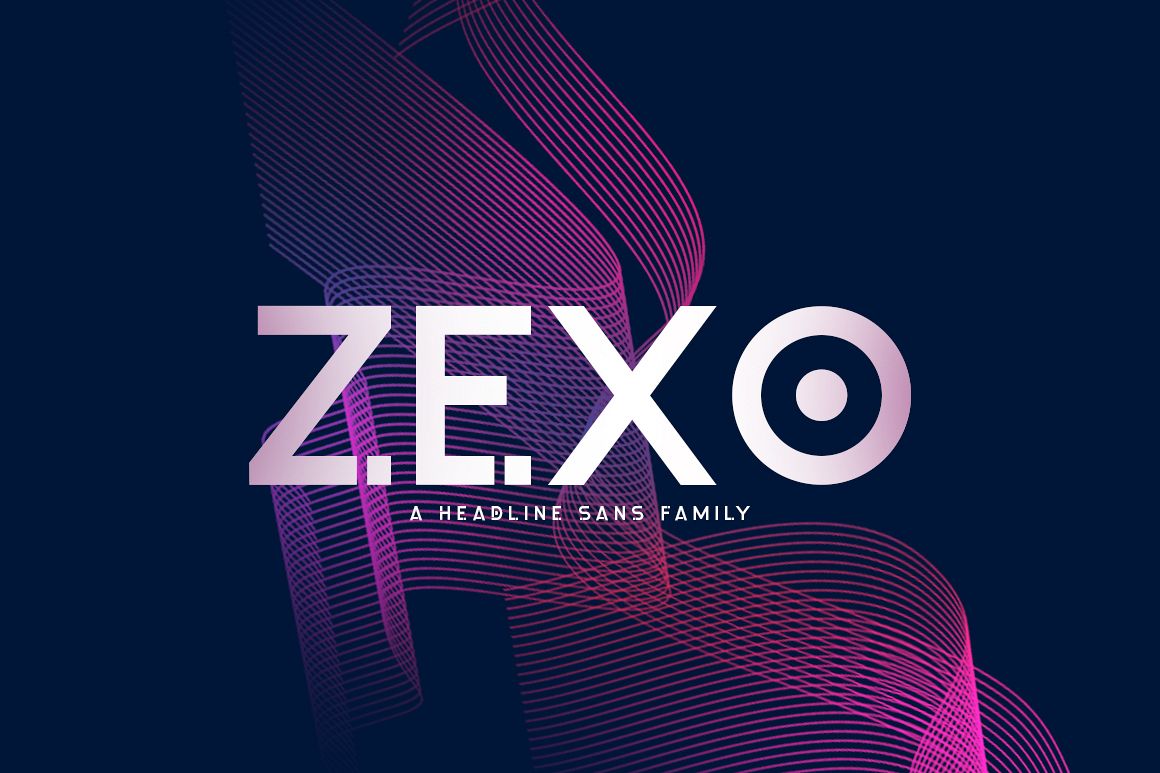
Zexo font is elegant and charming sans-serif typeface both modern and gorgeous. Zexo has 4 different styles. Zexo font it’s perfect for , poster, logo, magazine, cover, banner, tshirt and headers, or even large-scale artwork.